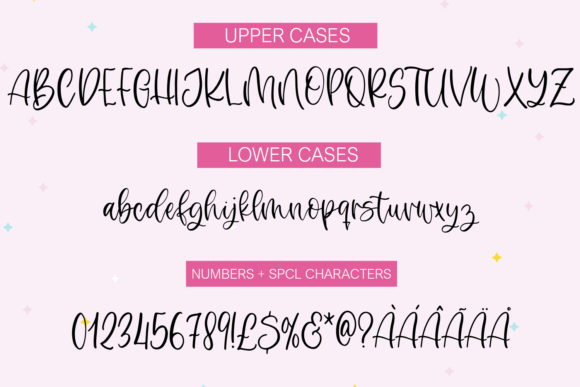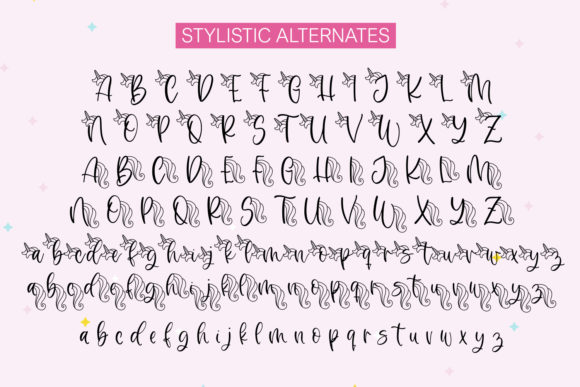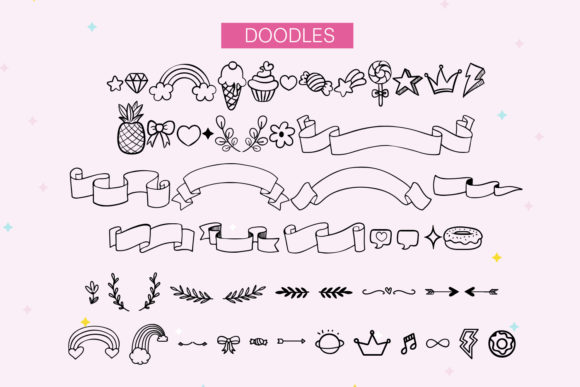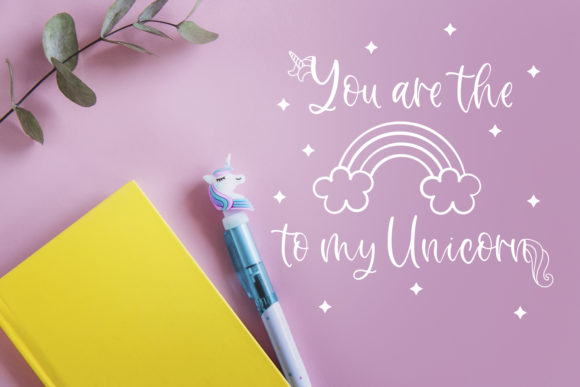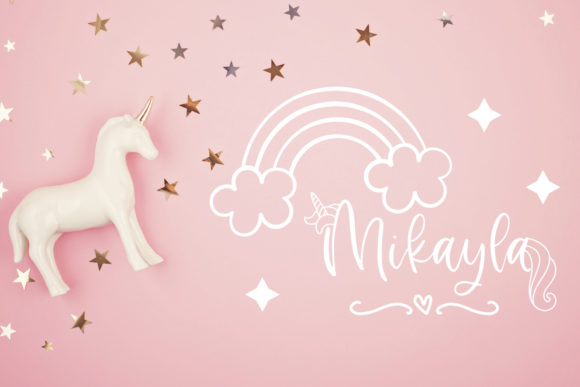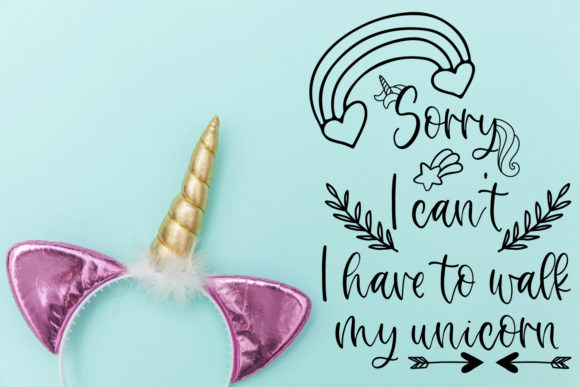
Rosemary the Unicorn Font
About Rosemary the Unicorn Font
Rosemary the Unicorn is an incredibly distinct, delicate and timeless handwritten font. It looks stunning on wedding invitations, thank you cards, quotes, greeting cards, logos, business cards and every other design which needs a handwritten touch.